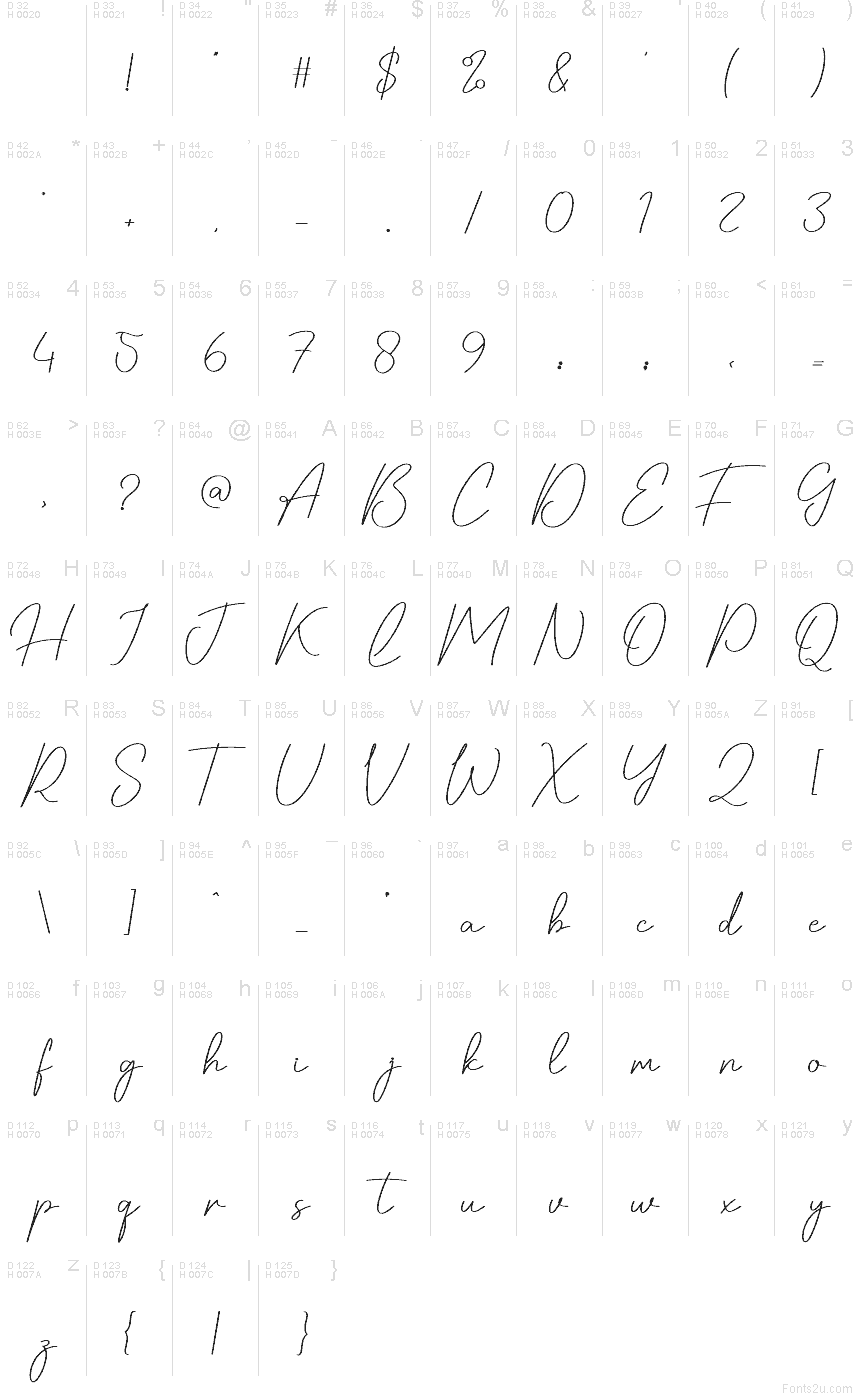
Scarytime
Scarytime font by Scratchones is a free handwritten typeface that turns spooky vibes into something stylish and whisper-soft. Its thin, inky lines feel like they were written with a jittery gel pen—elegant at first glance, but with a subtle unease in the stretched loops and swooping tails. The letters connect with an easy, slanted flow, giving your text that “scribbled in the dark” charm without losing legibility.
Using Scarytime, you can give Halloween party invites, thriller book covers, horror-themed logos, YouTube thumbnails, quote graphics, and eerie social posts a refined yet haunting personality. This free font shines when set larger, where the airy curves and long strokes have room to breathe; pair it with a clean, neutral sans serif for body text to keep the message sharp while the script does the storytelling.